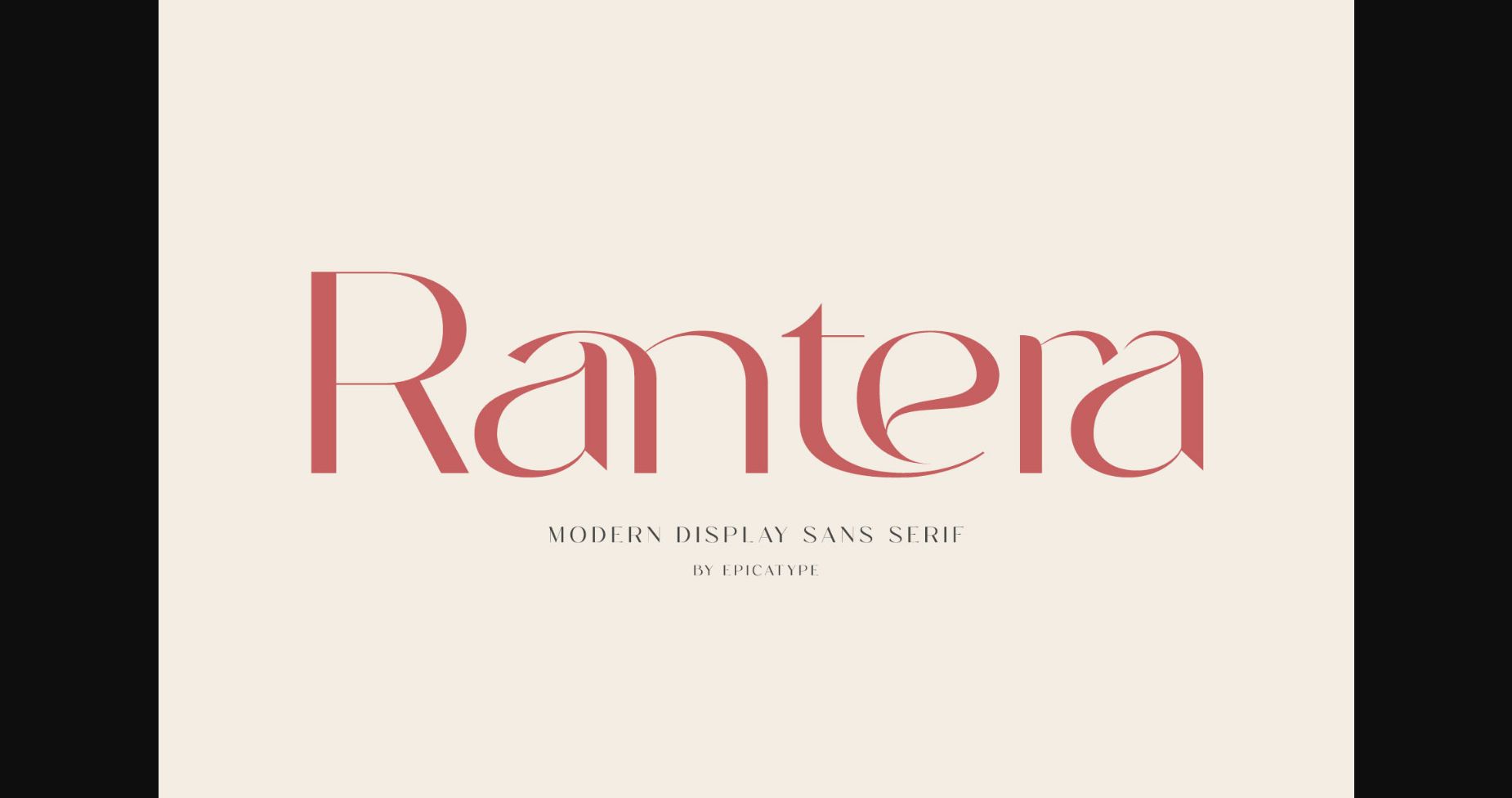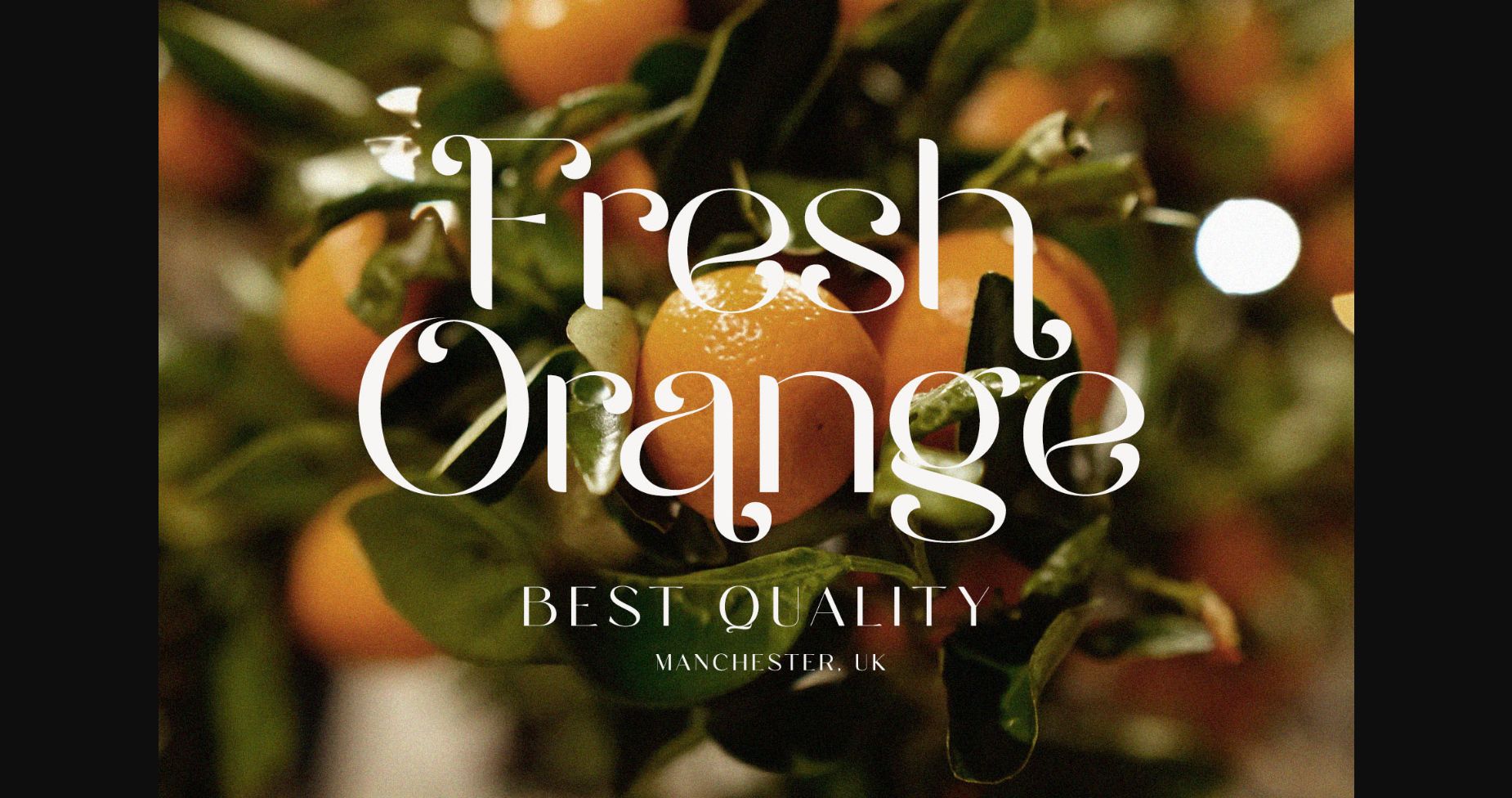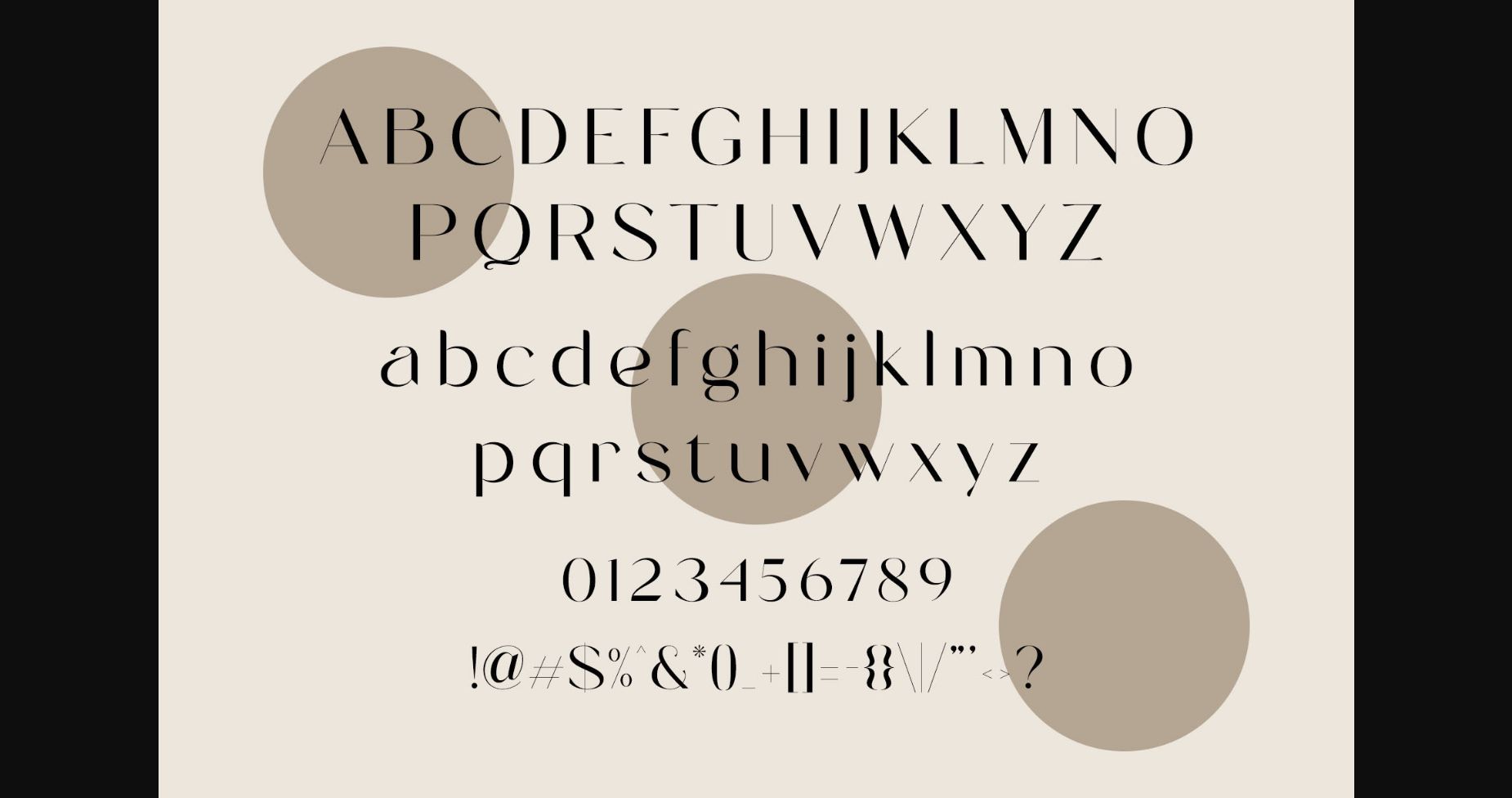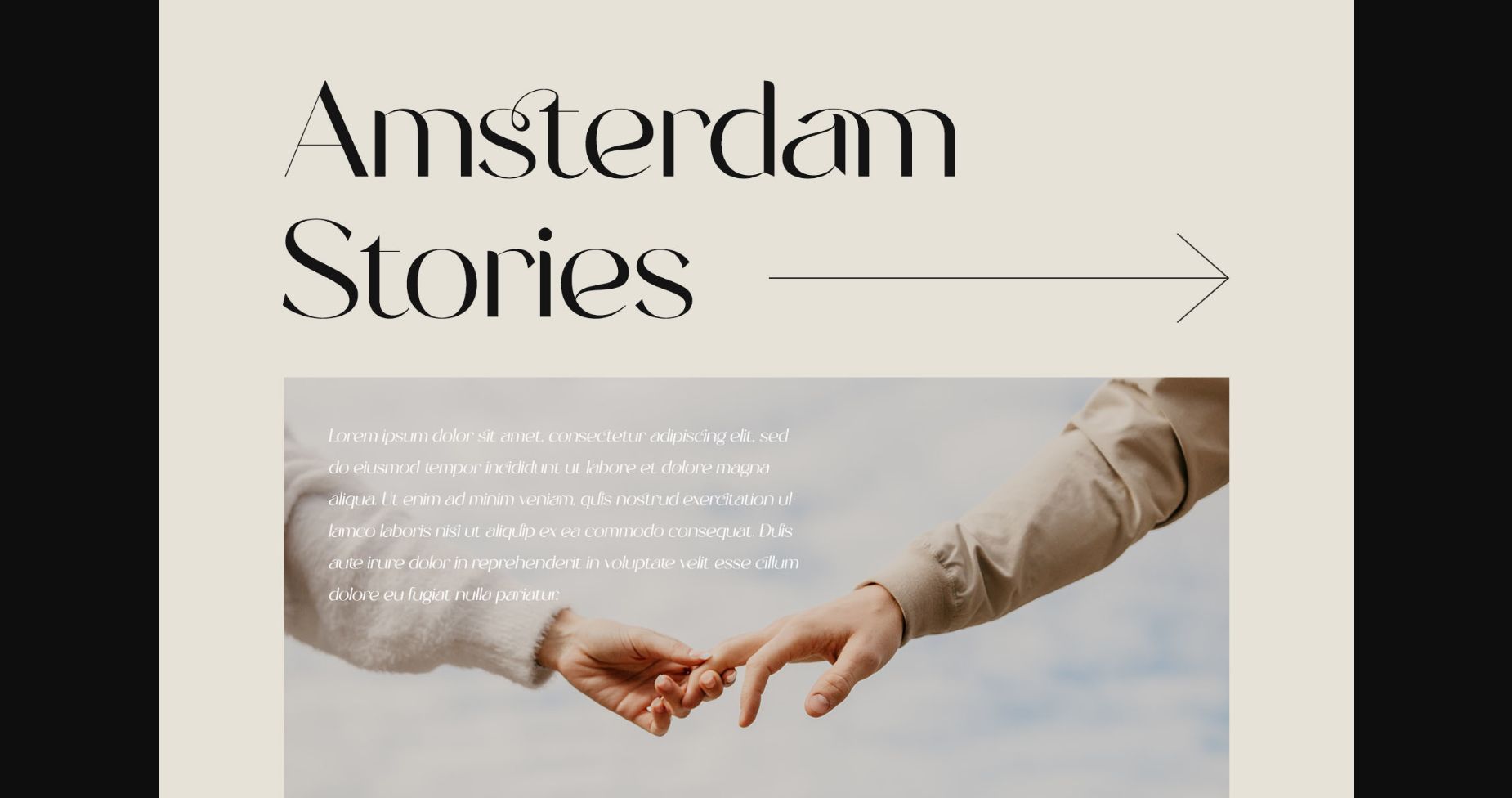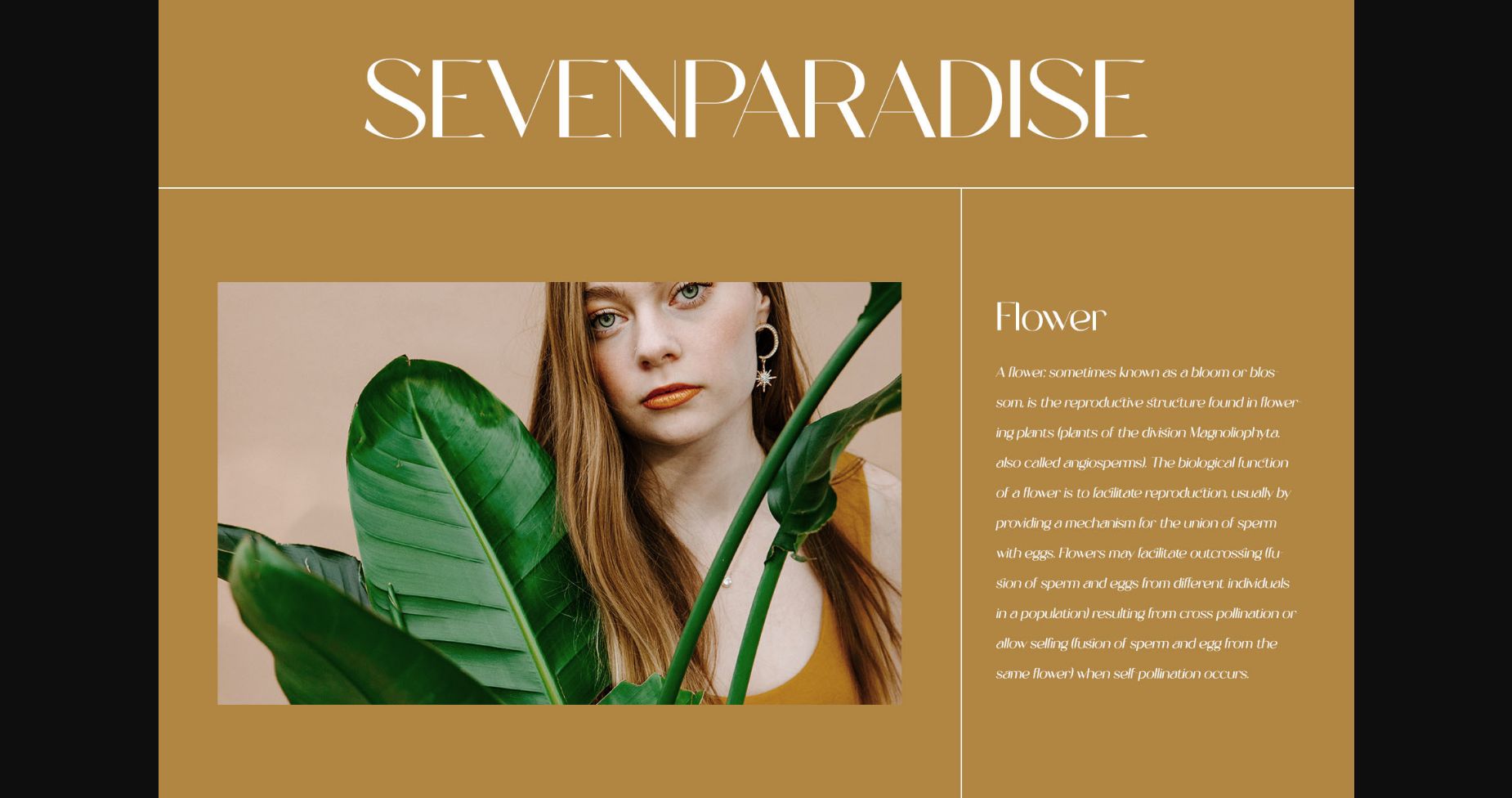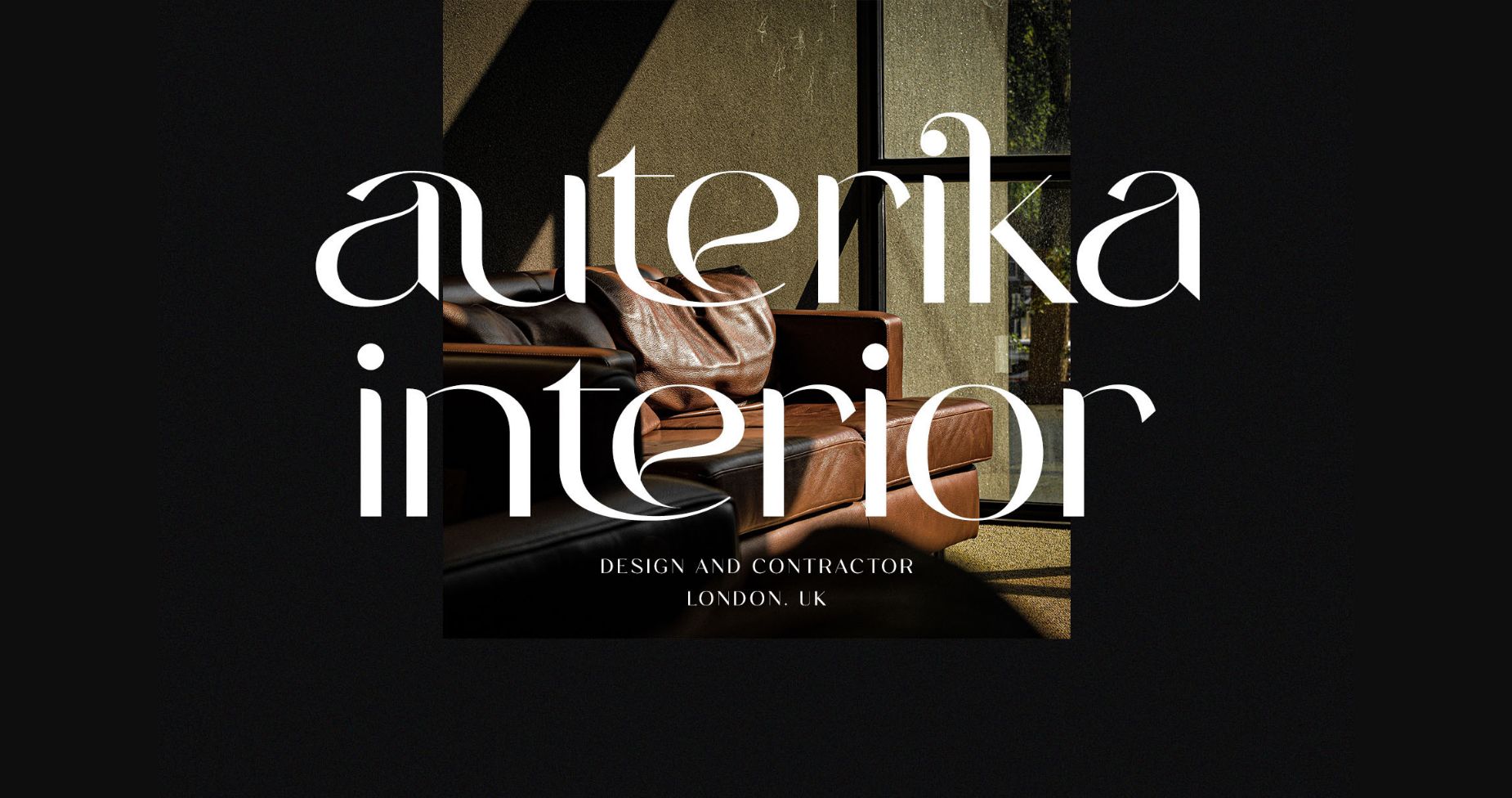
About Rantera Font
Rantera is a stylish and modern sans serif font. The soft curves mixed with high contrast glyphs give this font feminine and masculine qualities. Equipped with epic ligatures, this font is great in layout designs for quotes or body copy, and it will make a unique logo design.